Original Type
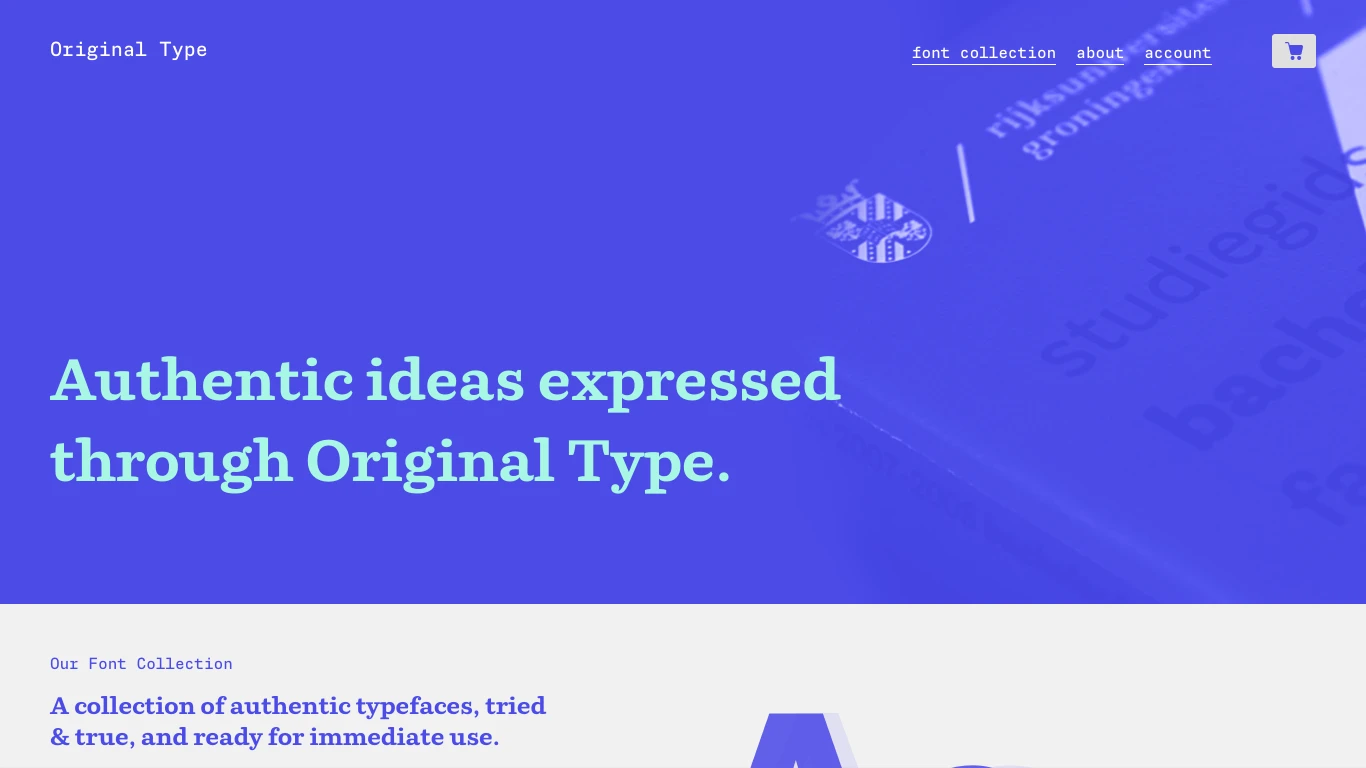
Netherlands
2018
Original Type is an Amsterdam-based type foundry founded in 2018 by Artur Schmal, a graduate of the Royal Academy of Art in The Hague. The foundry specializes in crafting original, contemporary typefaces that enable creatives and brands to express themselves authentically. Schmal's notable works include Parry, a slab serif inspired by Victorian-era typefaces, and Bonnie, a versatile sans-serif family. Original Type's typefaces have been utilized by various clients, including advertising agencies, publishing houses, and design studios. The foundry has joined Type Network, expanding its reach and collaboration within the type industry. A unique aspect of Original Type is its commitment to producing typefaces with the utmost care, meeting the latest industry standards, and offering both retail and custom typeface services.